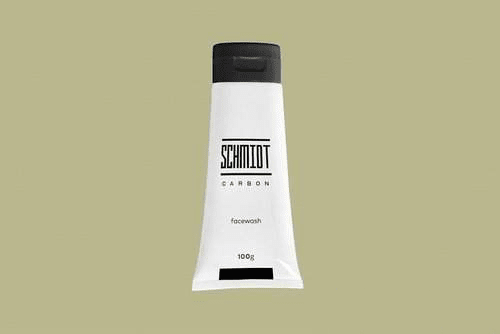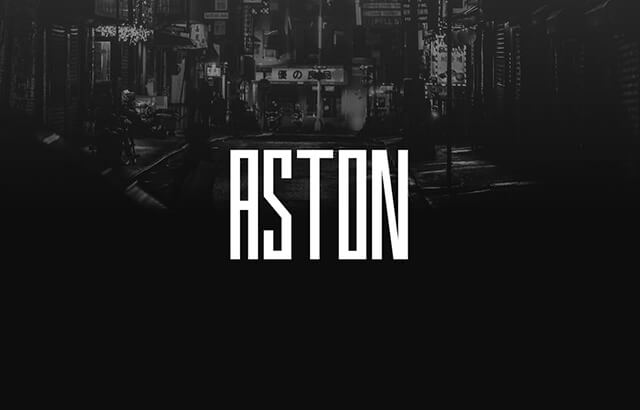
ASTON – Urban Display / Headline / Logo Typeface – PSDLY
ASTON comes with three weights (Light, Regular & Bold) along with italic versions of all three weights. The pack contains Desktop Fonts (OTF, TTF) and Web Fonts (EOT, SVG, TTF, WOFF, WOFF2) as licensing options